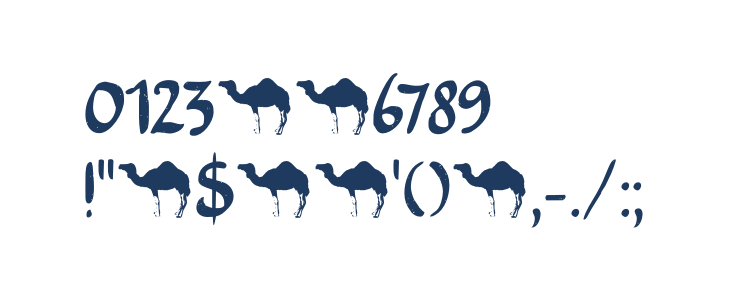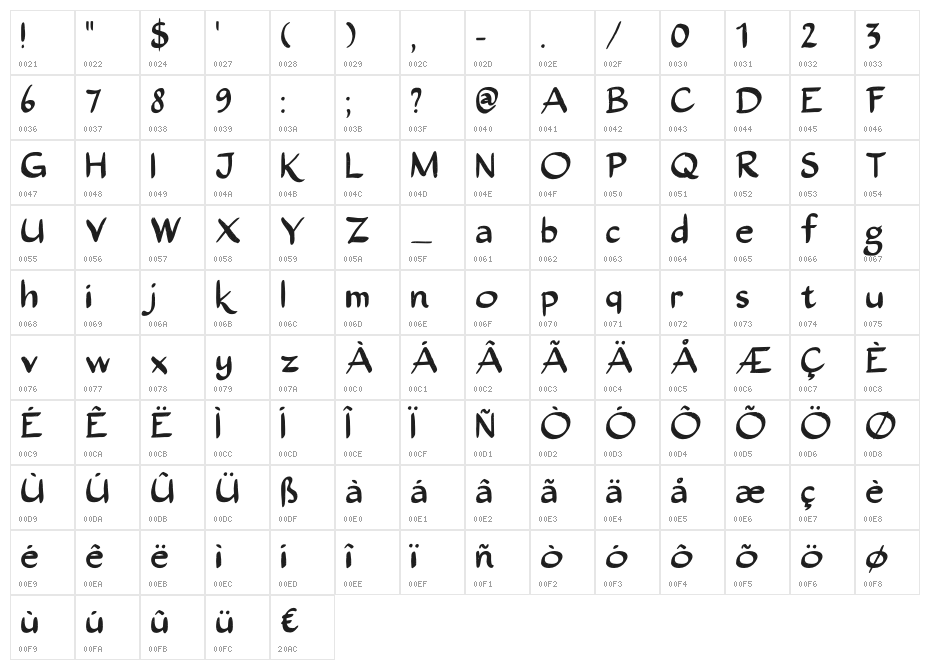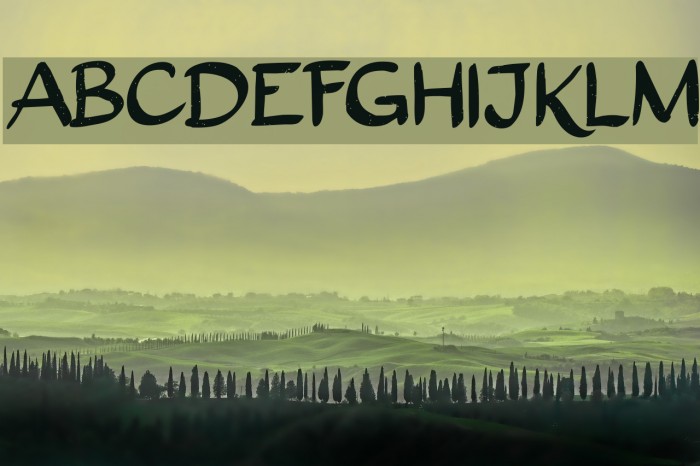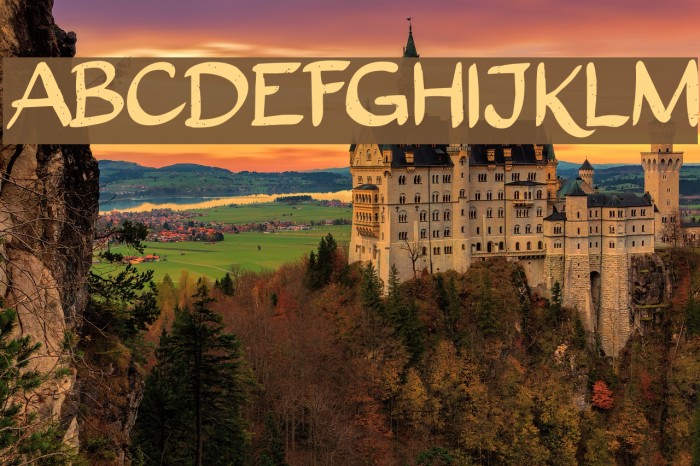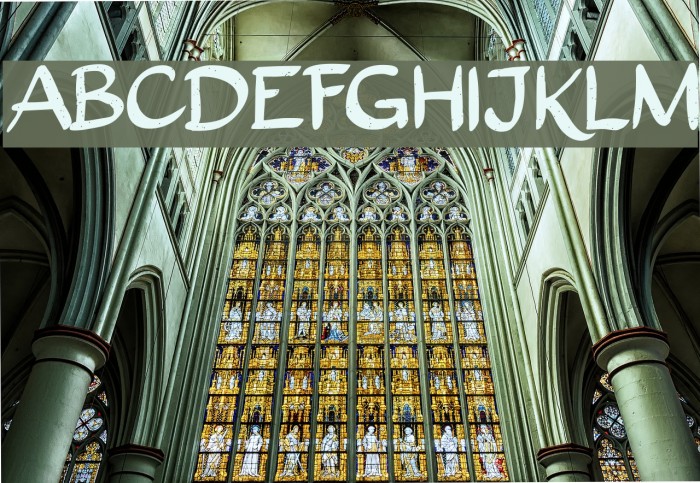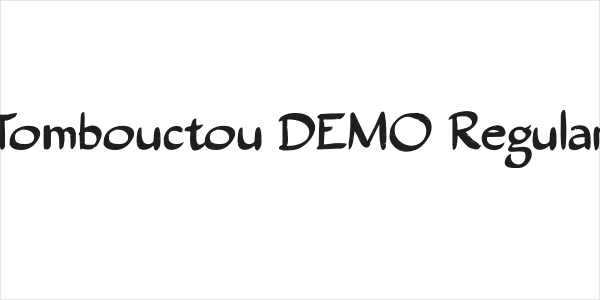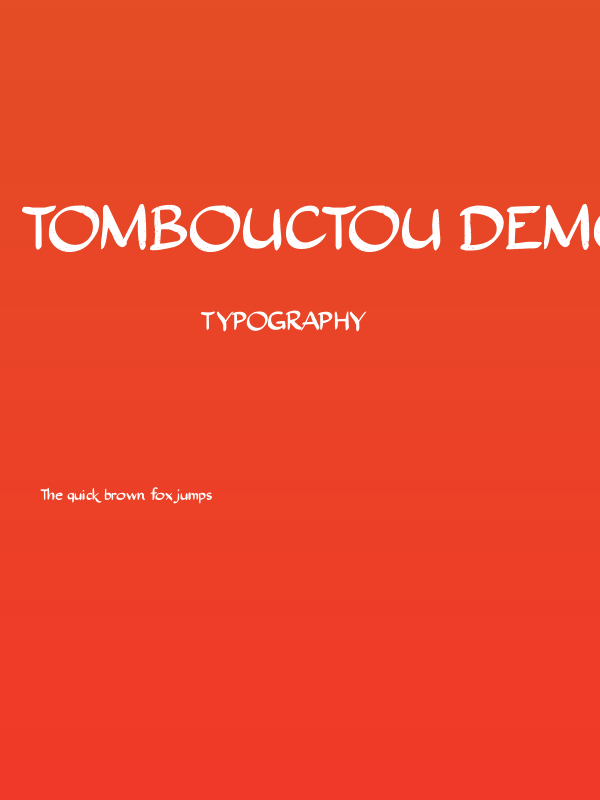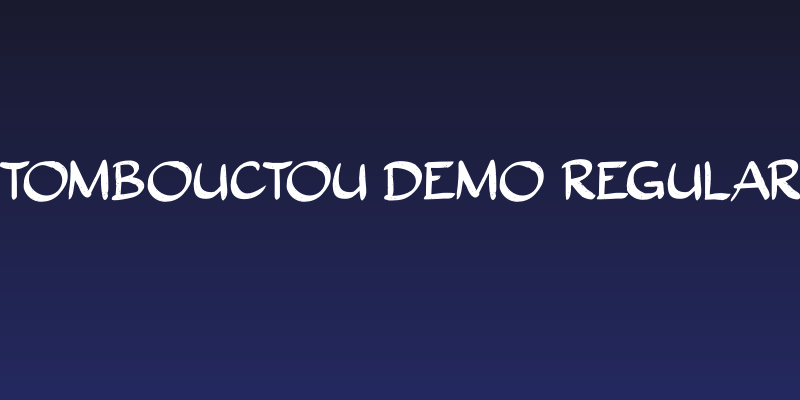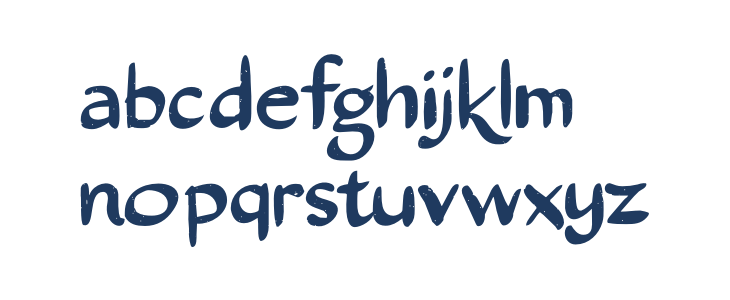
Tombouctou DEMO Regular Font
Tombouctou DEMO Regular Description
This font features a playful and artistic style with a hand-drawn appearance. The letters have a slightly irregular shape, giving them a whimsical and organic feel. The uppercase and lowercase characters maintain a consistent style, with rounded edges and a slightly distressed texture that adds a vintage touch. The numerals and special characters follow the same design principles, ensuring a cohesive look across all elements. The inclusion of camel silhouettes as special characters adds a unique and thematic element, making this font particularly suitable for creative and themed projects.
| Proposed Projects | Ideal for creative projects like posters, themed invitations, children's books, and branding for travel or adventure-related businesses. |